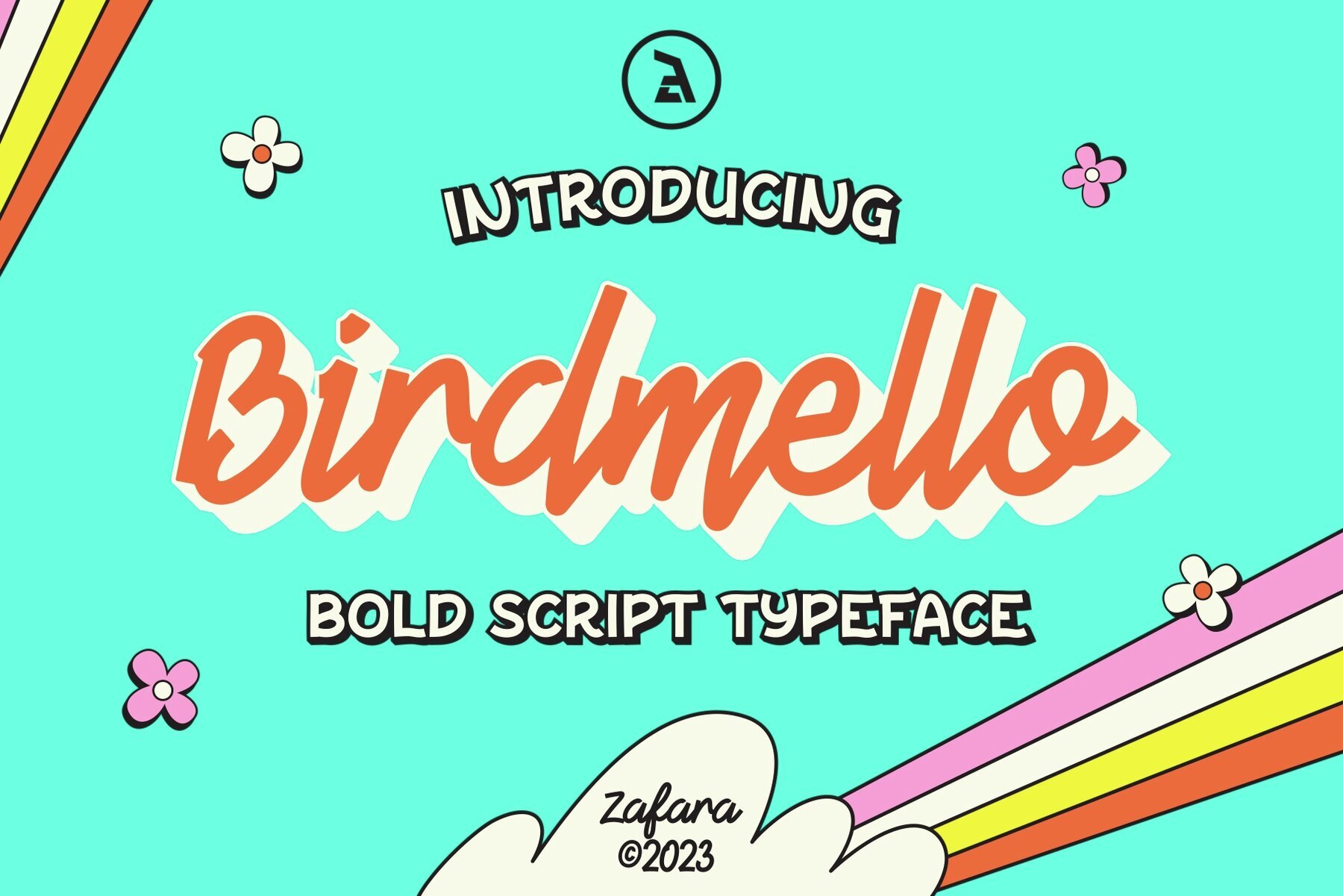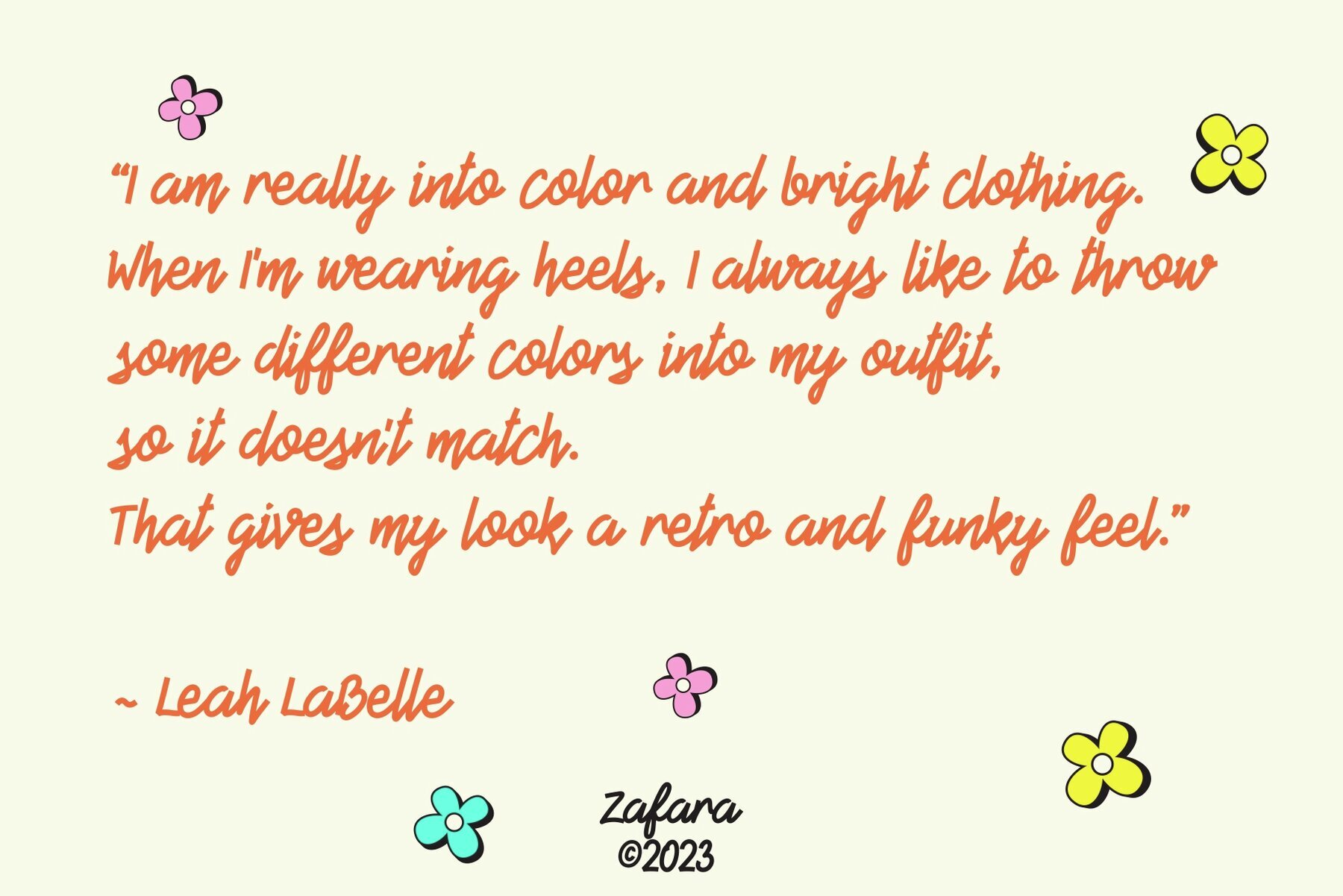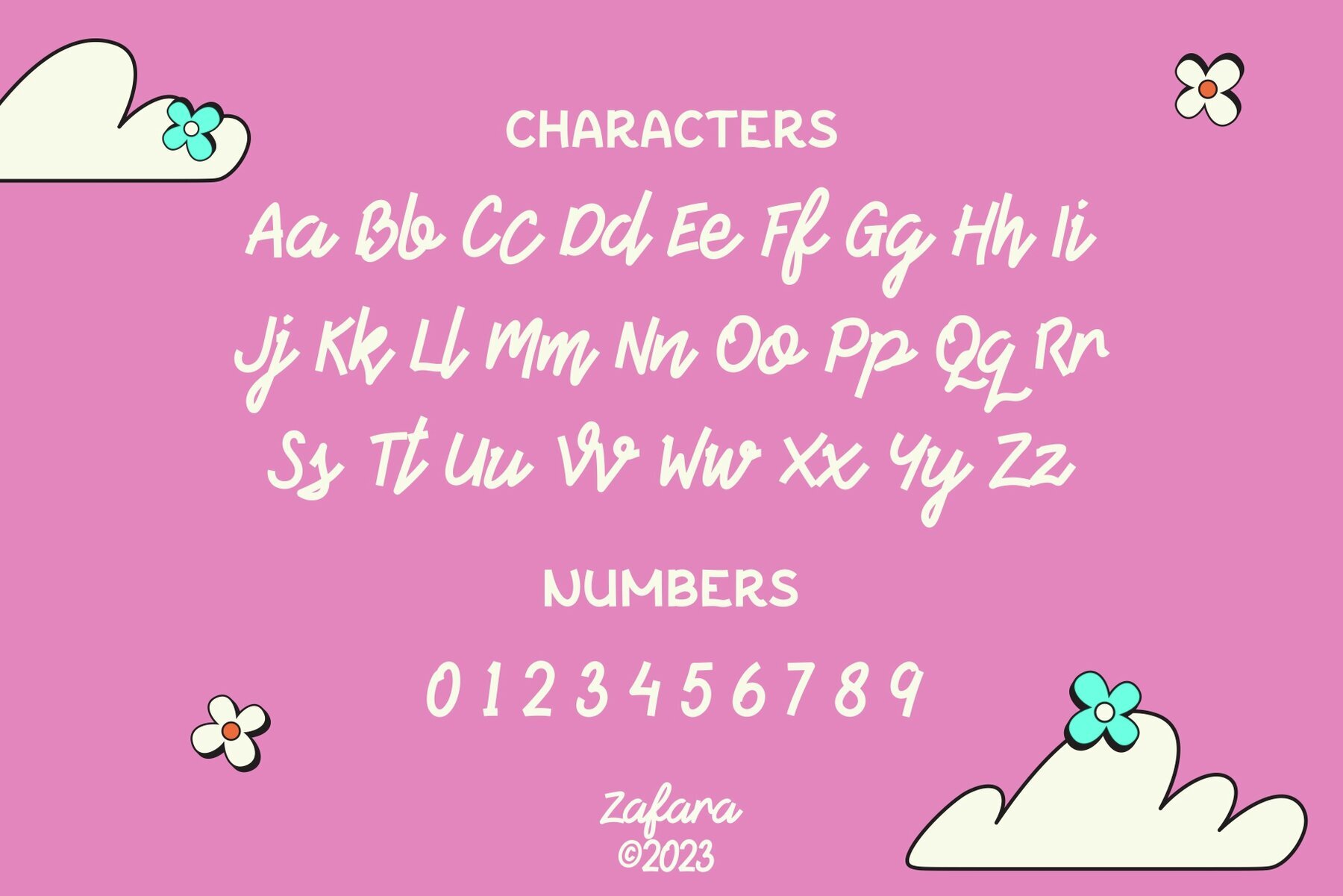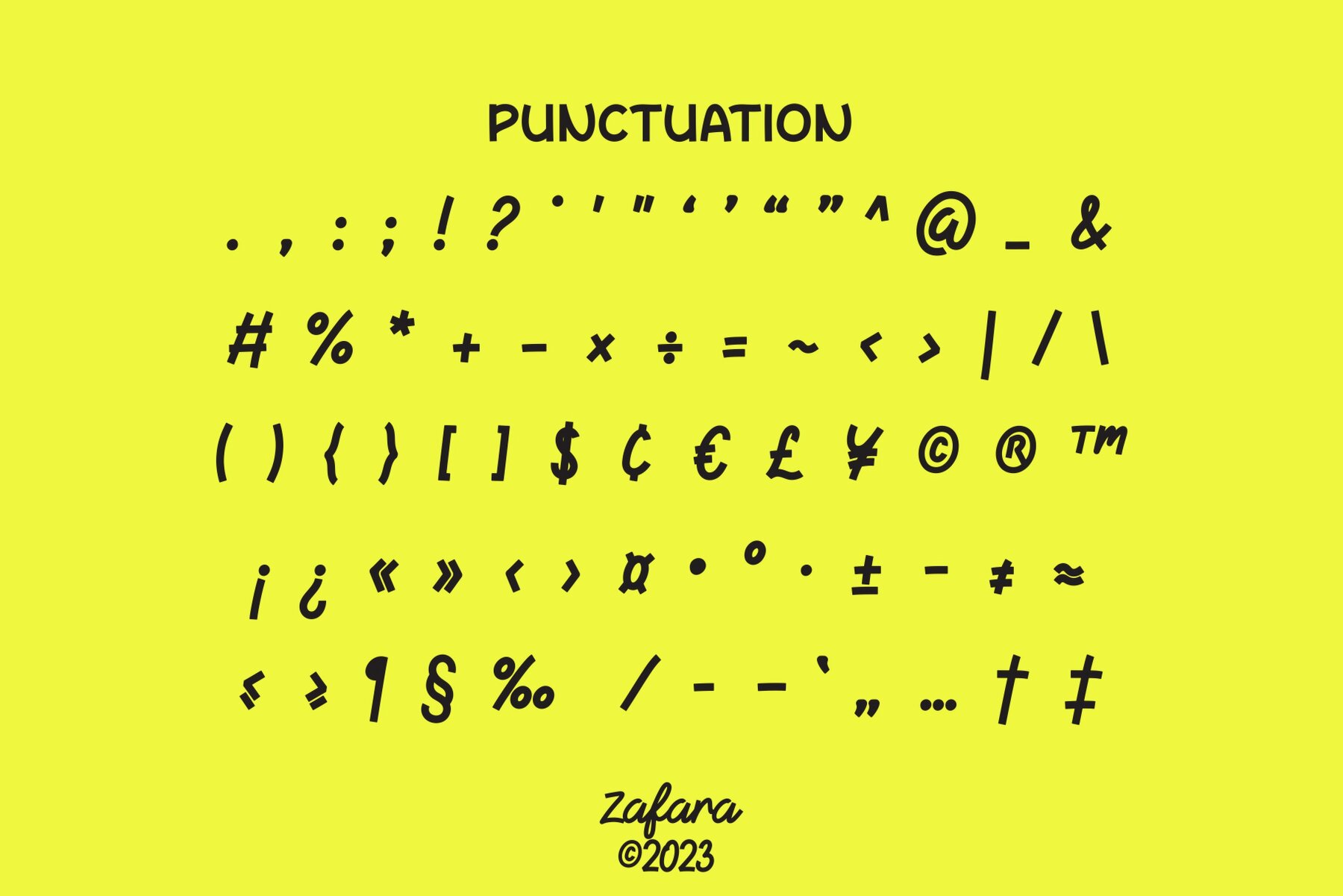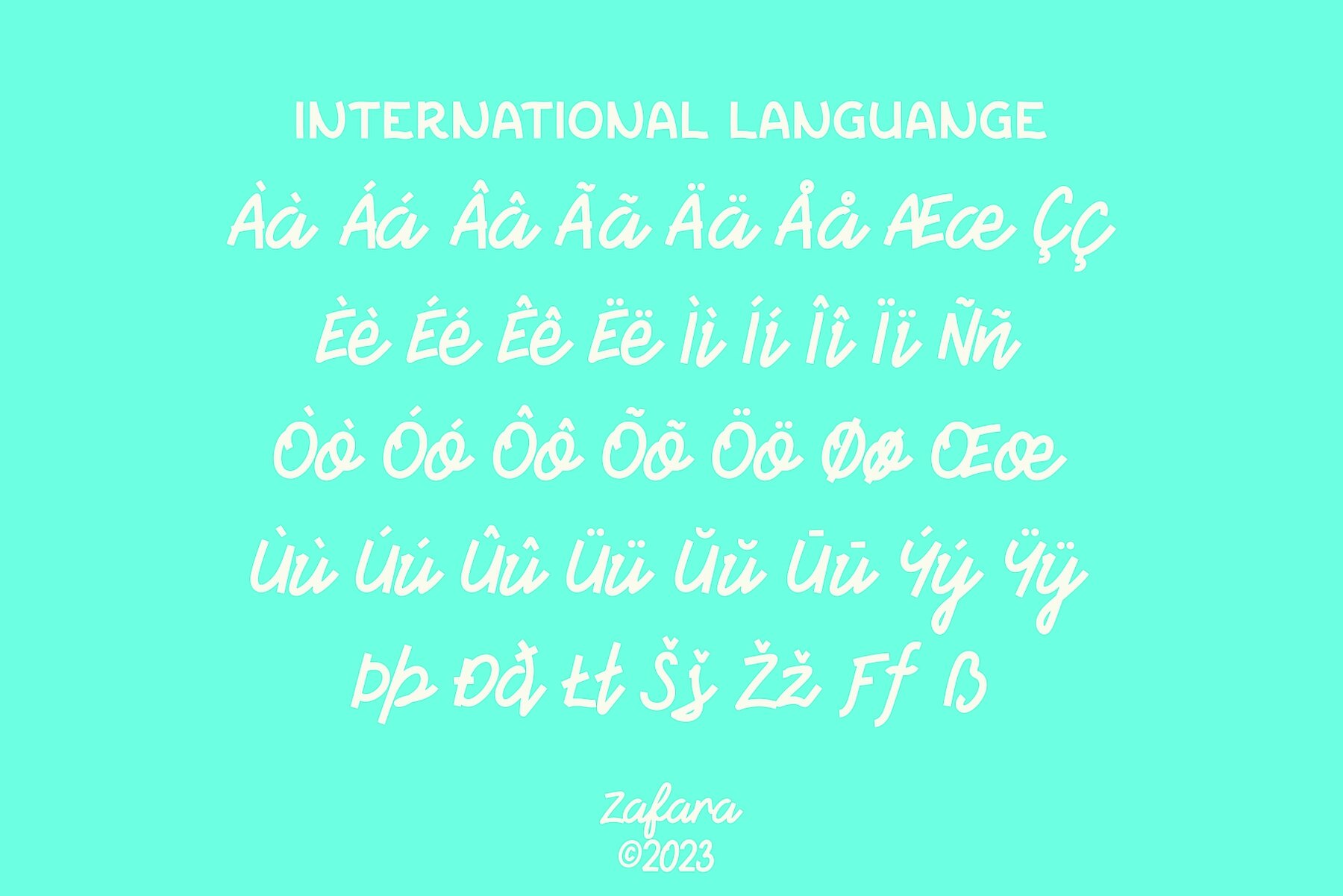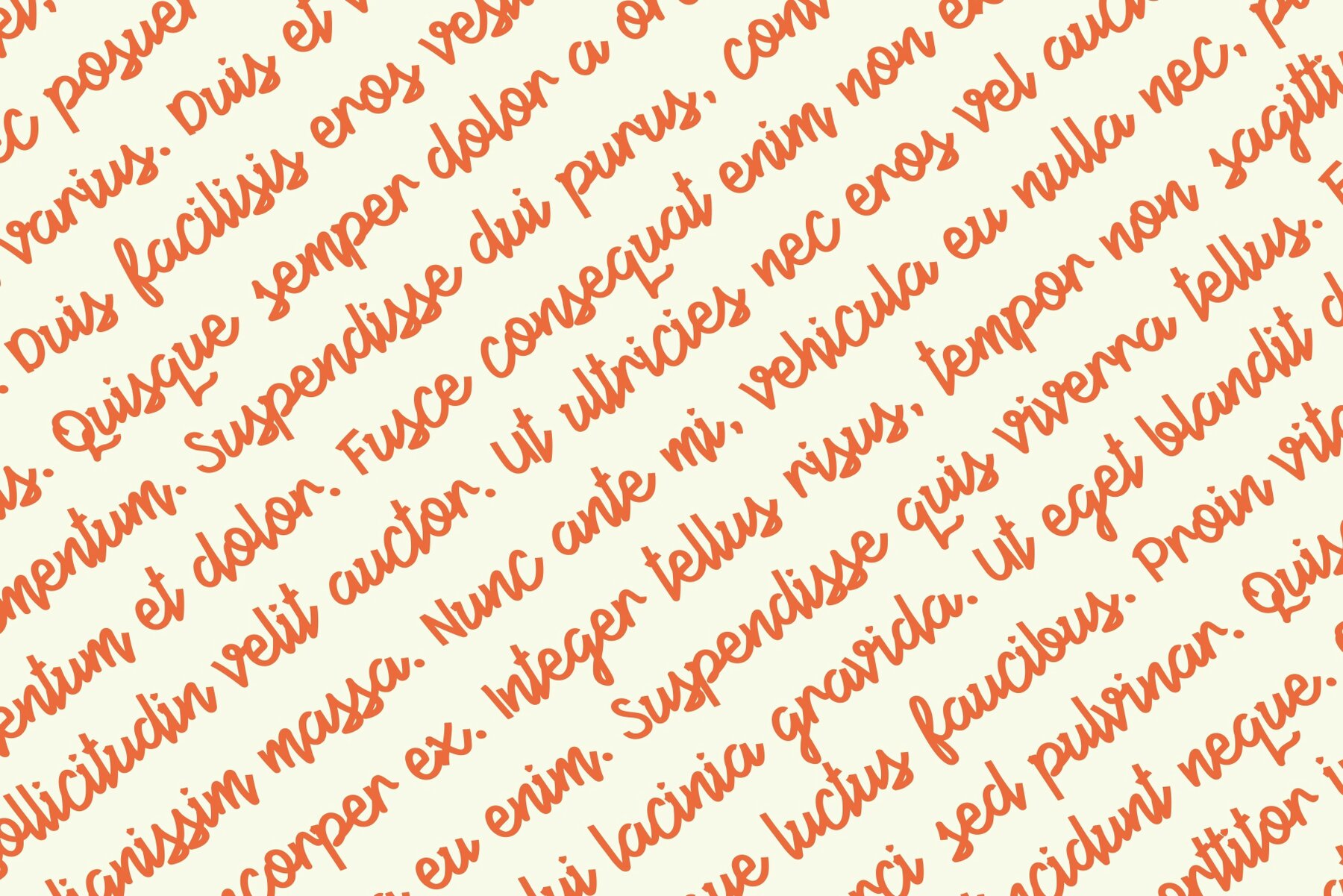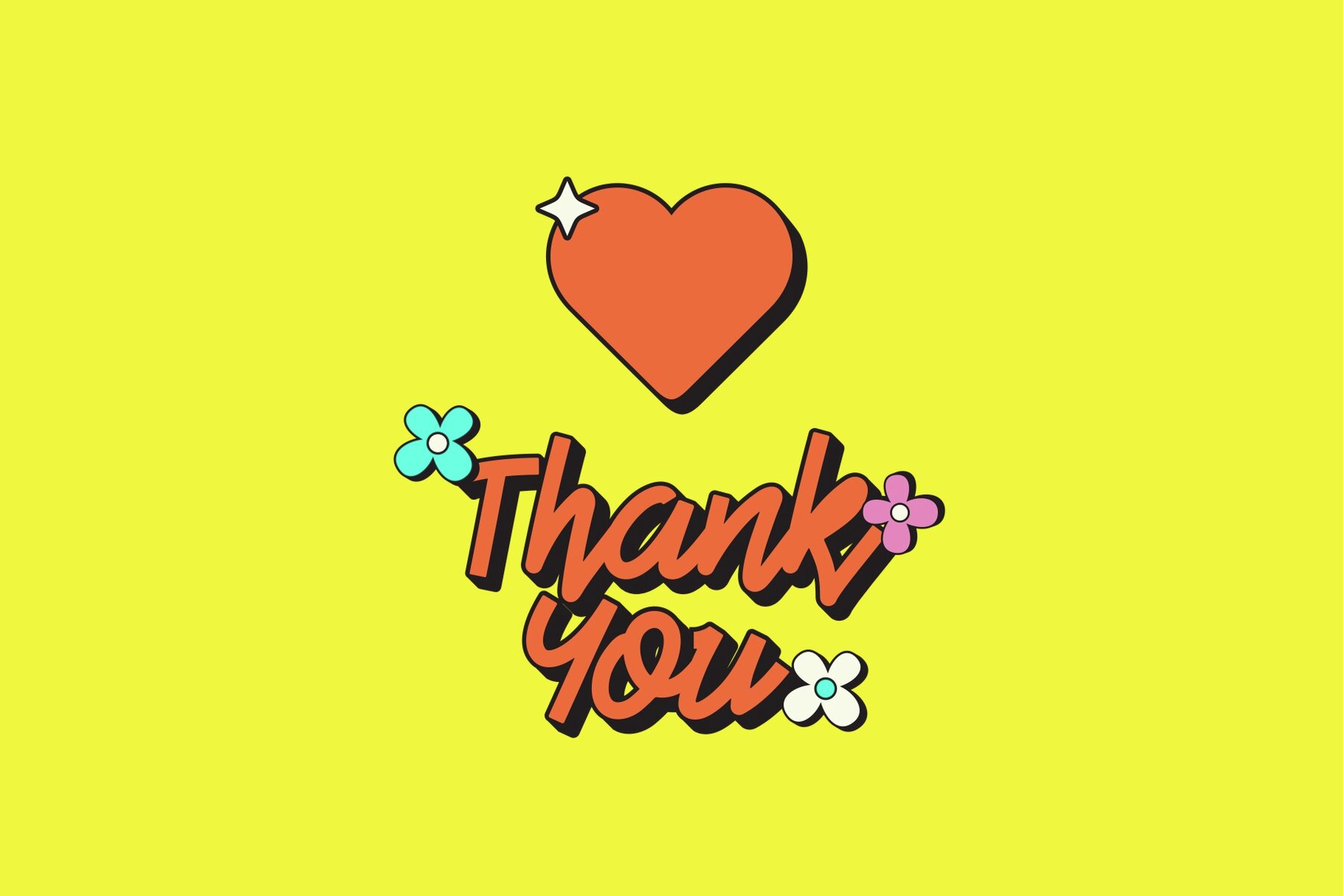
Birdmello Font
Birdmello Regular
Birdmello is a striking font featuring an expressive script style, ideal for enhancing greeting cards, logotypes, branding, and posters. Its adaptable nature allows it to complement a diverse range of design themes depending on your creative preferences.Birdmello: Bold Script Font for Versatile Design